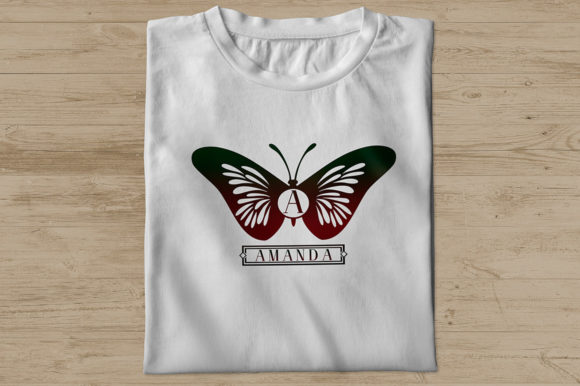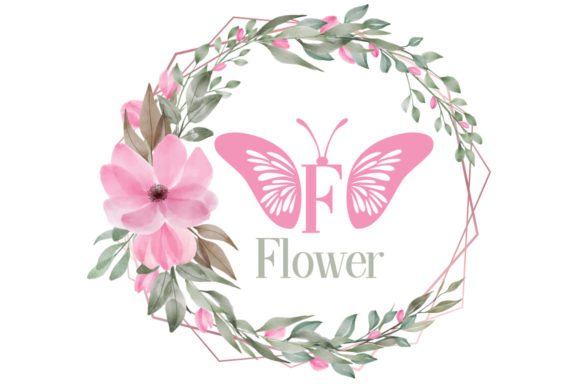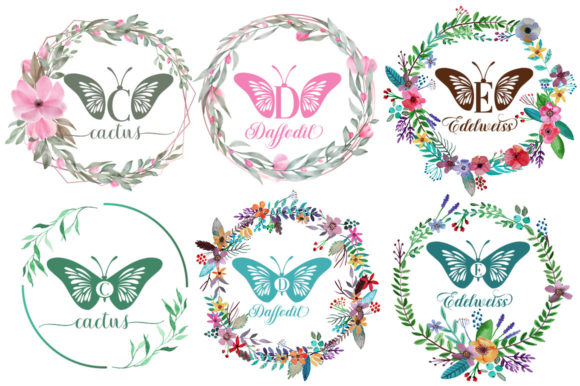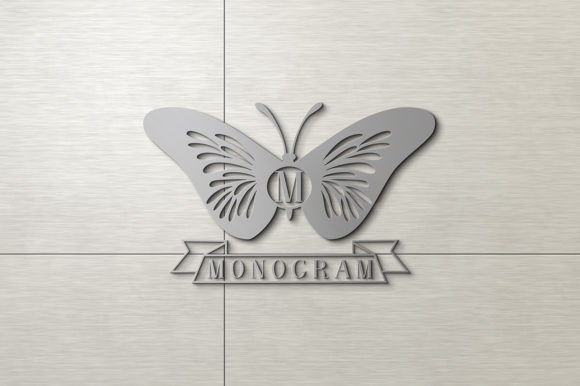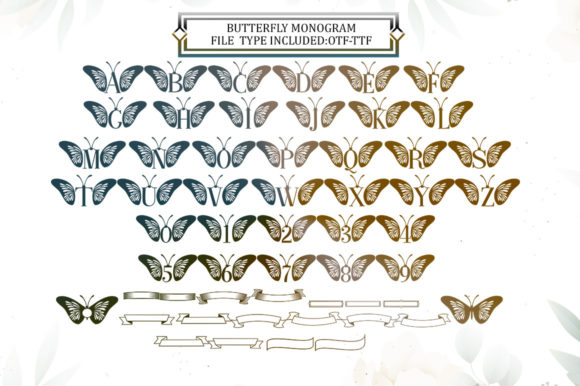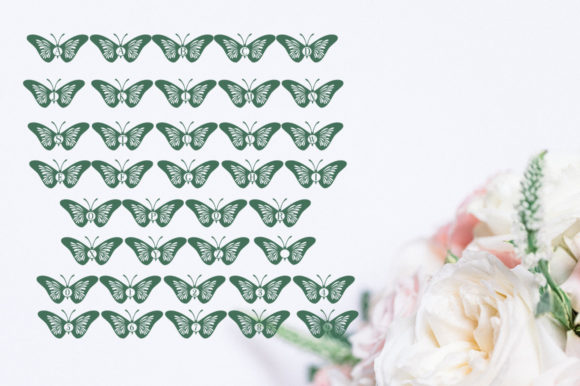
Spread Your Wings with the Magic of Butterfly Monogram Font
Have you ever found yourself in the midst of a creative frenzy, pouring your heart and soul into a project, only to realize that it’s missing that one special something to take it to the next level? For designers, this is a familiar feeling, and it’s what makes the discovery of a new, game-changing font so exhilarating.
Enter the enchanting Butterfly Monogram Font, a delightful decorative font that will transport your creations to a world of elegance and sophistication. Expertly designed to add a touch of whimsy and charm, this font is perfect for anyone looking to elevate their designs and leave a lasting impression.
Whether you’re a seasoned pro or a design newbie, the Butterfly Monogram Font is a valuable addition to your toolkit, offering endless possibilities for creativity and self-expression. With its unique charm and versatility, this font is sure to become a go-to favorite for designers of all levels.
Key Features of Butterfly Monogram Font
- Font Family: Butterfly Monogram Font is a unique, hand-drawn monogram font designed for creative and elegant purposes.
- Font Size: This font is designed to be used in a wide range of sizes, from small to large, with optimal legibility at font sizes 24-72 points.
- Unique Characteristics: Features intricate, swirling designs and ornate details, making it perfect for wedding invitations, monogrammed stationery, and other special occasions.
- Characters and Glyphs: Includes a wide range of characters, including uppercase and lowercase letters, numbers, punctuation, and special symbols, as well as various monogram designs and ornaments.
Butterfly Monogram Font Review
First off, let me say that the Butterfly Monogram Font has some really beautiful features ✨. The intricate details of the design make it perfect for any project that needs a touch of elegance. I particularly love the way the font can be customized to fit different color schemes and styles. The font is also highly versatile, making it suitable for a wide range of applications, from wedding invitations to business cards.
However, I do have some reservations about the Butterfly Monogram Font ⚠️. One of the main limitations is that it’s a bit too ornate for some projects. The intricate details can make it difficult to read, especially at smaller font sizes. Additionally, the font is not ideal for projects that require a lot of text, as the spacing between letters can be a bit too tight.
Here are some specific pros and cons:
- ✨ Beautiful and intricate design
- ✨ Highly customizable
- ✨ Versatile and suitable for a wide range of applications
- ⚠️ Can be difficult to read at smaller font sizes
- ⚠️ Not ideal for projects with a lot of text
Overall, I would say that the Butterfly Monogram Font is a great choice for projects that require a touch of elegance and sophistication. However, it’s not the best choice for projects that require a lot of text or simplicity.
Use the Butterfly Monogram Font to create elegant and whimsical designs, perfect for wedding invitations, baby showers, and other special occasions.
The Butterfly Monogram Font is ideal for:
Baby shower invitations and decorations
Special occasion cards and gifts